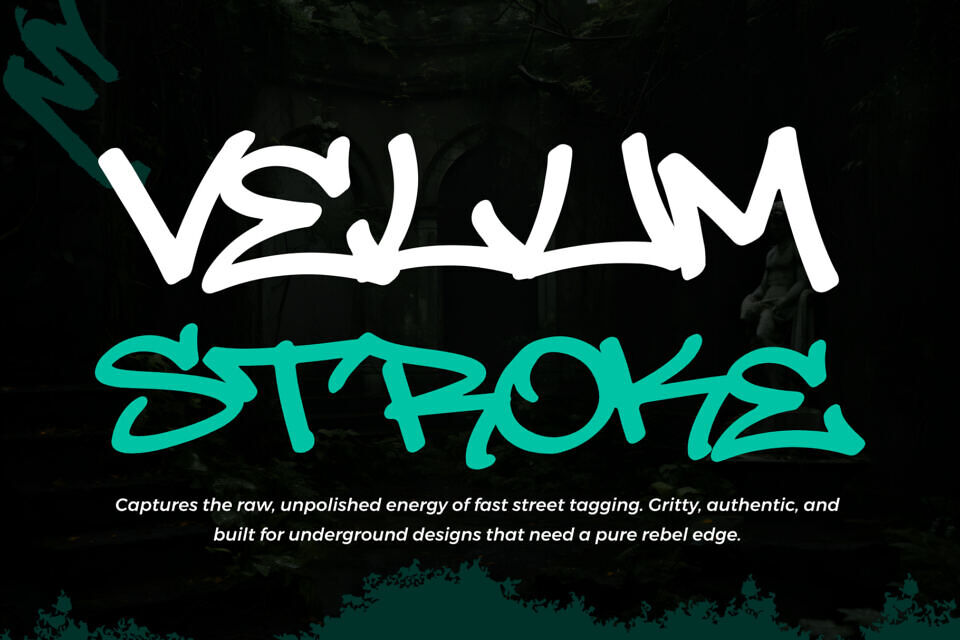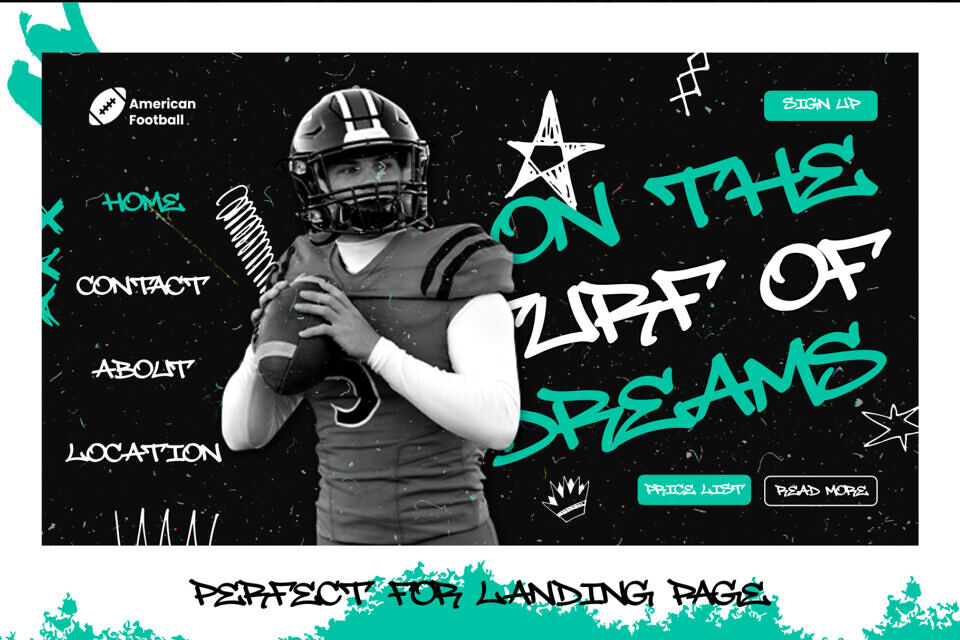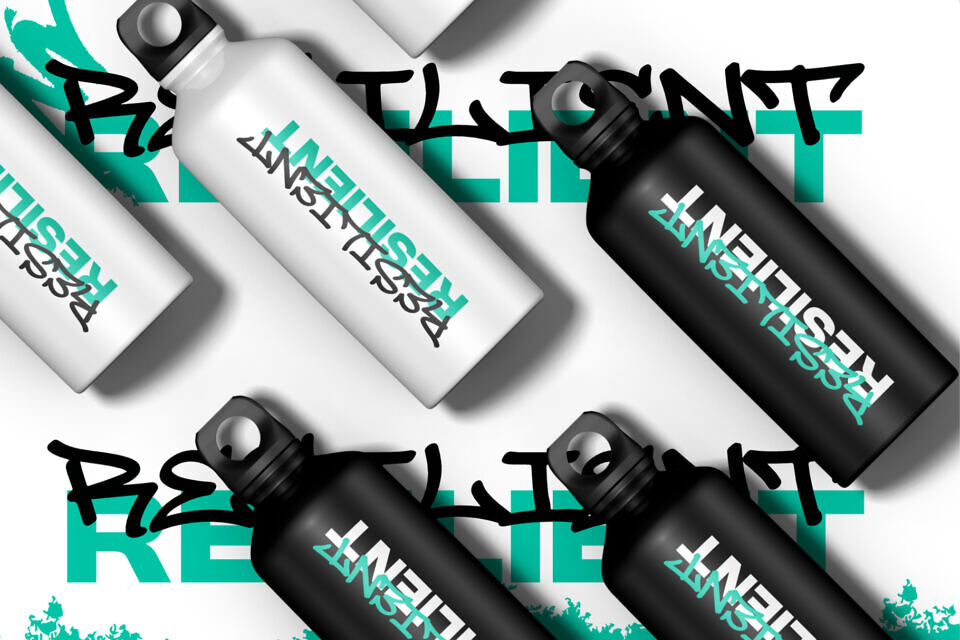
Velum Stroke Font
Velum Stroke is a raw and expressive graffiti typeface inspired by real handwritten street tags. Designed to capture the honest movement of marker strokes and spontaneous writing, this font delivers a natural graffiti look that feels personal, bold, and authentic. As a handwritten graffiti tags font, Velum Stroke is perfect for designers who want their work to reflect true urban culture without artificial effects.
Every letter in Velum Stroke graffiti font is crafted to preserve the imperfect beauty of hand lettering. The strokes flow freely, creating a natural rhythm that mirrors real graffiti writing found on city walls, skate spots, and underground spaces. This makes Velum Stroke an ideal choice for projects that demand originality, character, and street credibility.